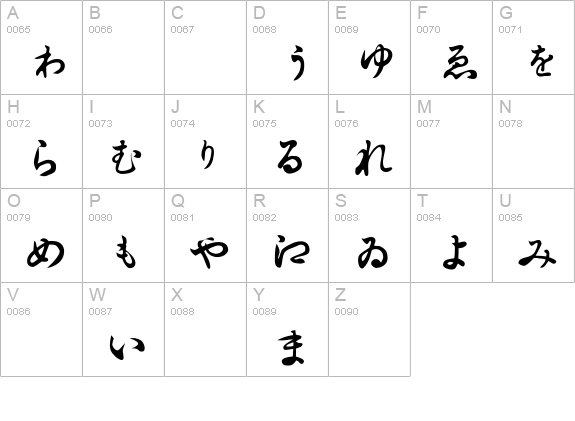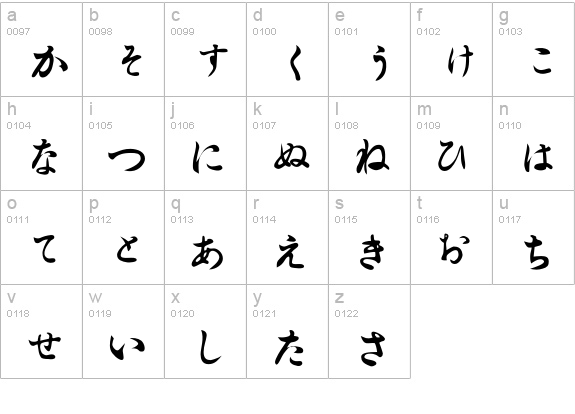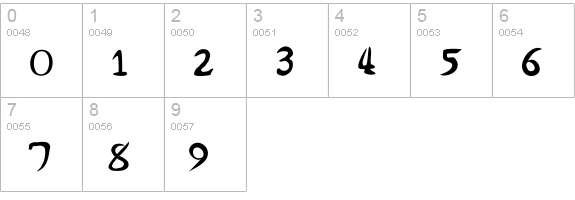
HiraGana Font Details
HiraGana font is a beautifully crafted typeface that exudes elegance and simplicity. With its clean lines and smooth curves, HiraGana is a versatile font suitable for a wide range of design projects. Whether you're creating a sleek modern website or designing a classic print piece, HiraGana will add a touch of sophistication to your work. The best part? HiraGana font is completely free to download at FontsMarket.com. This means you can enhance your projects with this stunning font without breaking the bank. So why wait? Head over to FontsMarket.com and download HiraGana font today to elevate your designs to the next level!